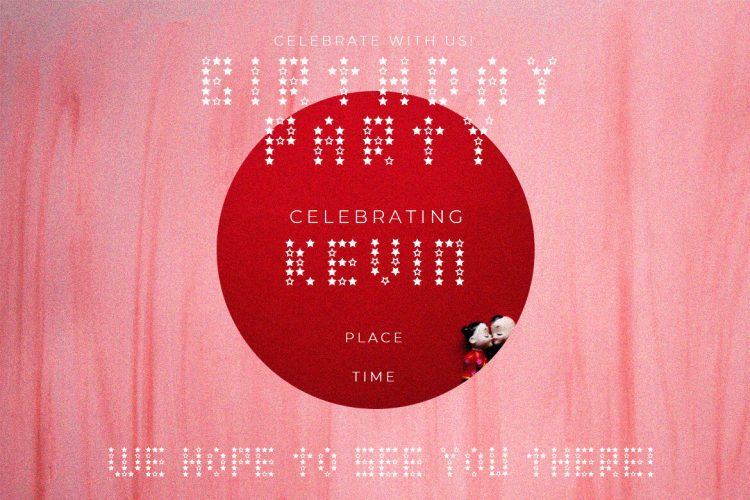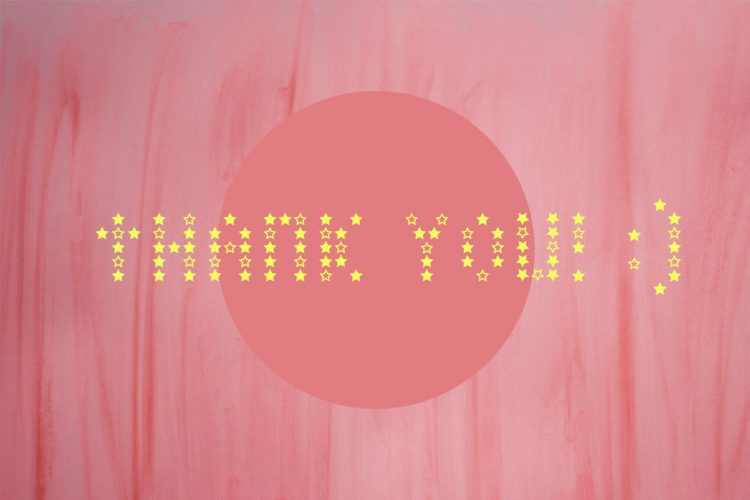
Starlz is a cool and trendy decorative font, featuring characters designed with the help of little stars. This font is perfect for children themed designs, especially when combined with bright colors.. Contains standard English letters, numbers, punctuation, Ligatures and several accents that support multilingualism.